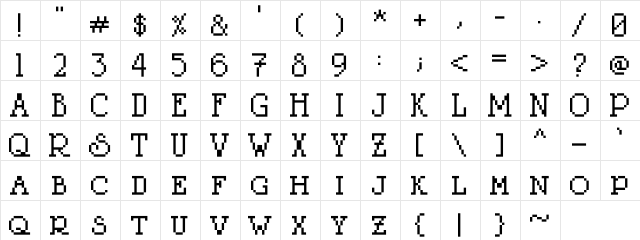
LitterLover Regular
Design Context for LitterLover Typeface
LitterLover offers clean, dependable letterforms without strong stylistic allegiance, making it a practical choice for designers who need flexibility.